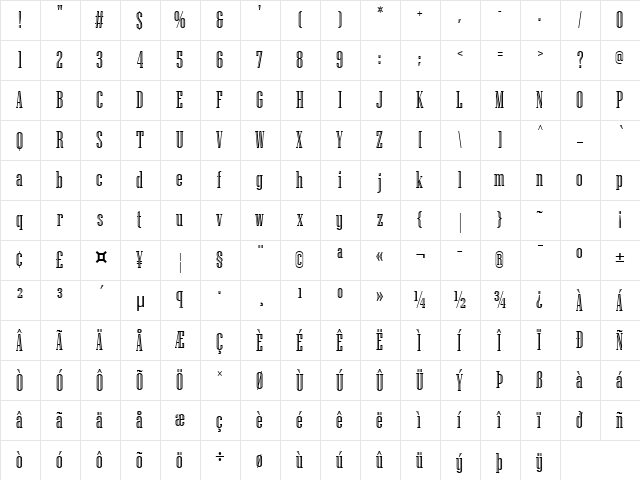
Niagara Engraved Regular
| Foundry | The Font Bureau, Inc. |
| Designer | Tobias Frere-Jones |
Design Context for Niagara Engraved Typeface
Niagara Engraved is built around its visual character rather than neutral utility — its distinctive forms are designed to make an impression at display sizes.
Font Pairing: Pair with a clean neutral sans-serif for body copy to let Niagara Engraved's character lead without overwhelming the composition.
Pro Tip: Treat Niagara Engraved as the centrepiece of your typographic hierarchy. One strong heading set in a decorative face can carry an entire layout.